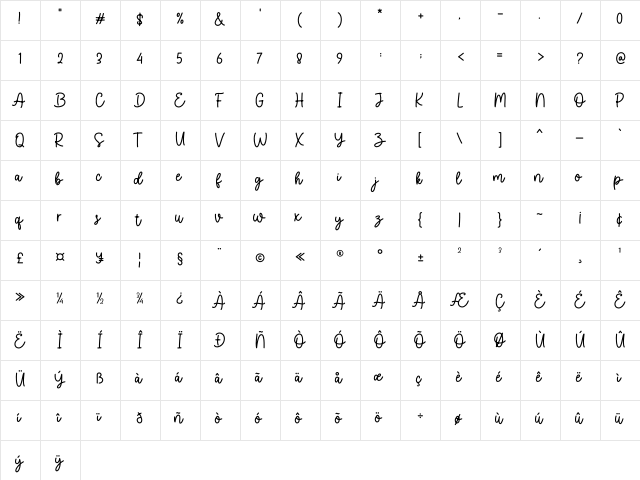
Focus Quotes Script Regular
Design Context for Focus Quotes Script Typeface
Focus Quotes Script brings a calligraphic fluidity to the page — its connecting strokes and expressive curves give it an unmistakably human quality.
Font Pairing: Combine Focus Quotes Script with a simple geometric sans for maximum contrast — the tension between flowing curves and clean structure is a classic typographic pairing.
Pro Tip: Pair Focus Quotes Script with a clean sans-serif for supporting text. The contrast between fluid script and geometric structure creates an elegant typographic hierarchy.